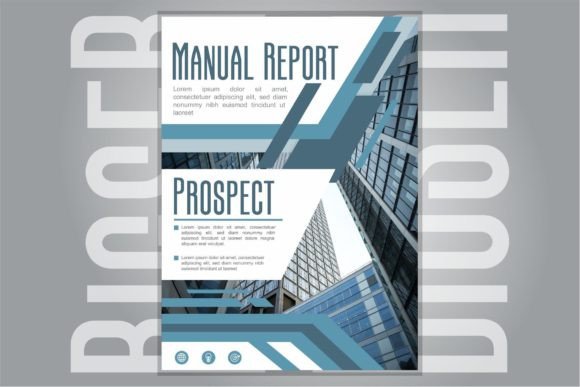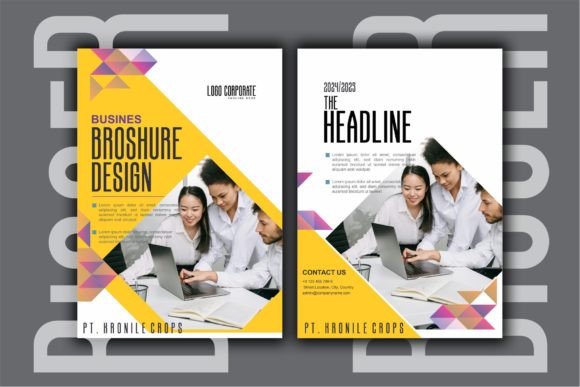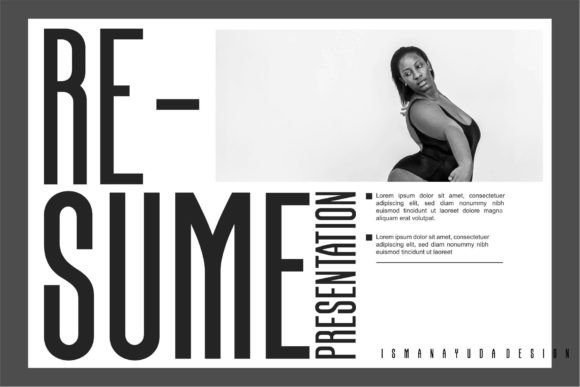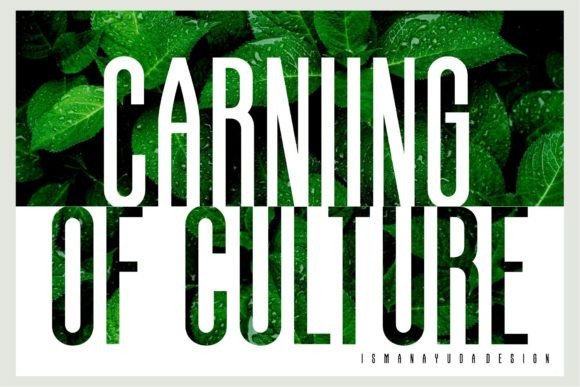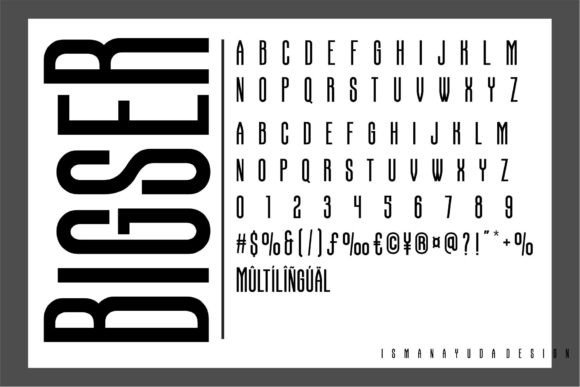
Bigser Font: The Ultimate Sans Serif for Modern Designs
In the world of typography, fonts play a crucial role in conveying the message and aesthetic of a design. With numerous options available, finding the perfect font can be overwhelming, especially for designers and crafters. However, if you’re looking for a versatile and modern sans serif font, look no further than Bigser Font. In this article, we’ll explore the features, benefits, and uses of Bigser Font, making it a go-to choice for your design needs.
What is Bigser Font?
Bigser Font is a sans serif font designed to be highly versatile and adaptable to various design applications. Its clean and modern look makes it an excellent choice for a wide range of projects, from websites and logos to posters and presentations. The font’s simplicity and clarity ensure that your message is conveyed effectively, making it perfect for designers and crafters seeking a professional look.
Key Features of Bigser Font
- Clean and Modern Design: Bigser Font boasts a sleek and contemporary design, making it ideal for modern designs and projects that require a fresh look.
- Versatility: This font is highly versatile and can be used for various purposes, including websites, logos, posters, presentations, and more.
- Legibility: Bigser Font is designed to be highly legible, ensuring that your text is easy to read and understand, even at small sizes.
- Scalability: The font is optimized for scalability, maintaining its clarity and aesthetic appeal even when resized.
Benefits of Using Bigser Font
Using Bigser Font in your designs offers several benefits, including:
- Professional Look: Bigser Font gives your designs a professional and modern look, making them stand out from the crowd.
- Consistency: The font’s consistency in style and design ensures that your brand’s visual identity is cohesive and recognizable.
- Time-Saving: With Bigser Font, you can save time and effort in selecting and pairing fonts, as it can be used for multiple design applications.
- Cross-Platform Compatibility: Bigser Font is compatible with various platforms and devices, ensuring that your designs look great everywhere.
Uses of Bigser Font
Bigser Font’s versatility makes it suitable for a wide range of design applications, including:
- Websites: Use Bigser Font for website headers, titles, and body text to create a modern and responsive design.
- Logos: Create stunning logos with Bigser Font, perfect for branding and identity designs.
- Posters: Make a statement with Bigser Font in your poster designs, ideal for advertising, events, and promotions.
- Presentations: Use Bigser Font in your presentations to add a professional touch and engage your audience.
Tips for Using Bigser Font
To get the most out of Bigser Font, consider the following tips:
- Pair with Other Fonts: Experiment with pairing Bigser Font with other fonts to create a unique and visually appealing design.
- Adjust Font Sizes: Adjust font sizes to create visual hierarchy and emphasize important information.
- Use Color Effectively: Use color to add contrast and make your design more engaging.
Bigser Font is a versatile and modern sans serif font perfect for designers and crafters seeking a professional look. Its clean design, legibility, and scalability make it an excellent choice for various design applications. With its numerous benefits and uses, Bigser Font is sure to become a staple in your design toolkit. Whether you’re designing a website, logo, poster, or presentation, Bigser Font is an excellent choice to elevate your designs and make them stand out.